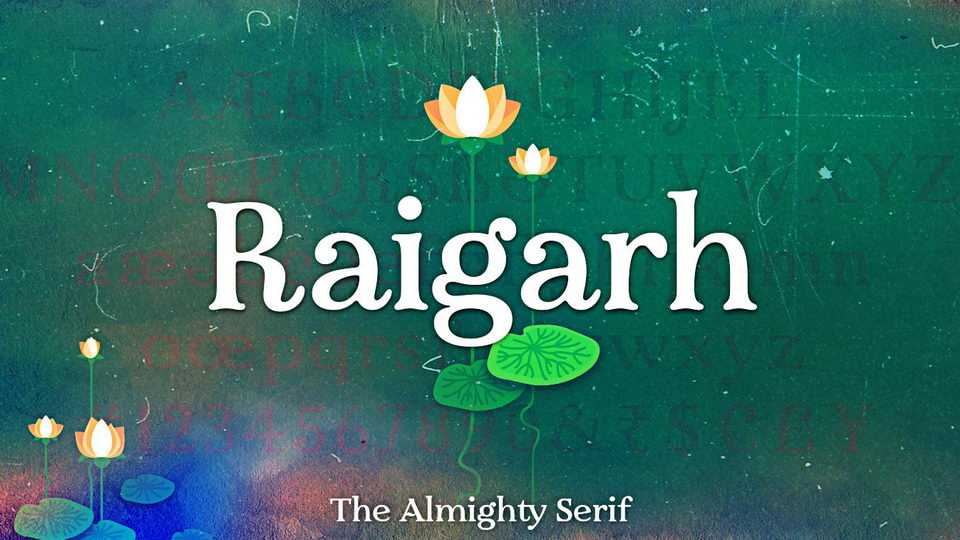
Download Raigarh font, an old style serif display typeface for a vintage storytelling. Raigarh is perfectly suitable for historical classic movie posters, book covers, magazine covers, branding, art quotes and so much more!
Designer: Jaikishan Patel